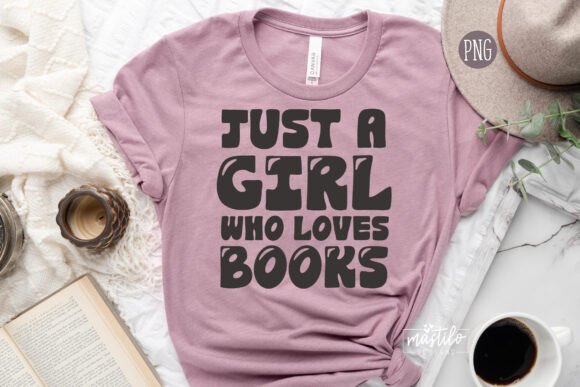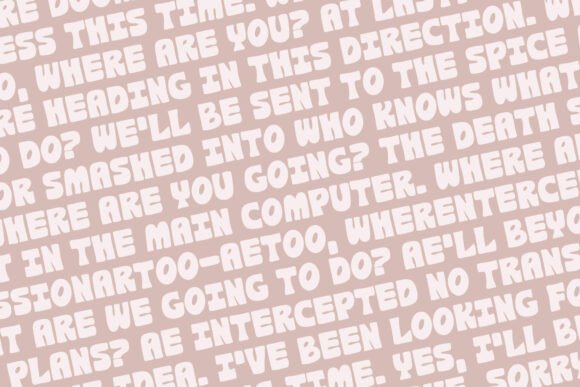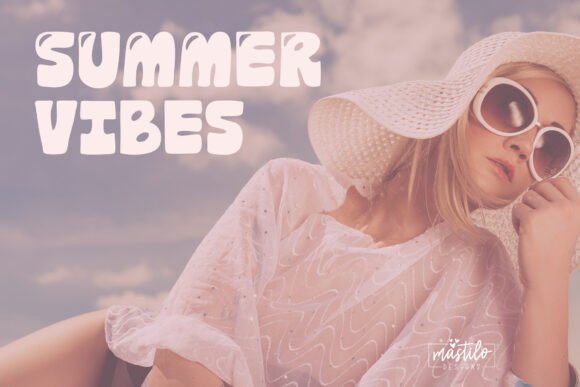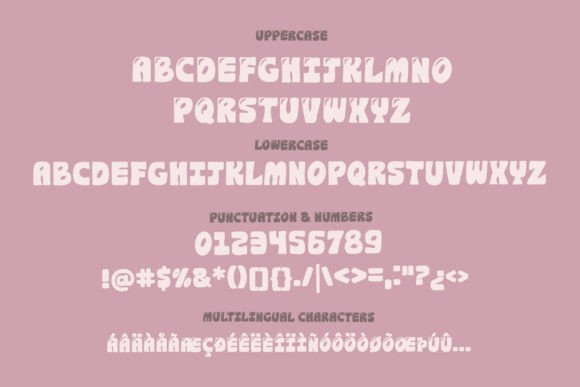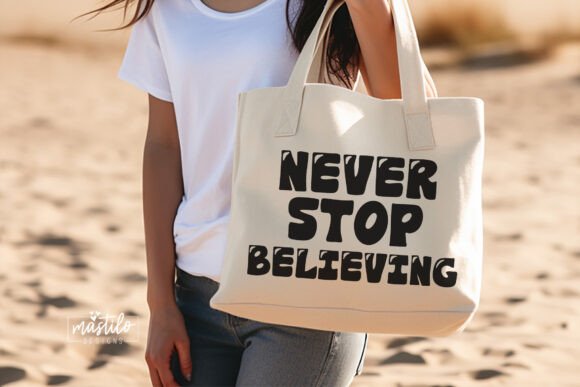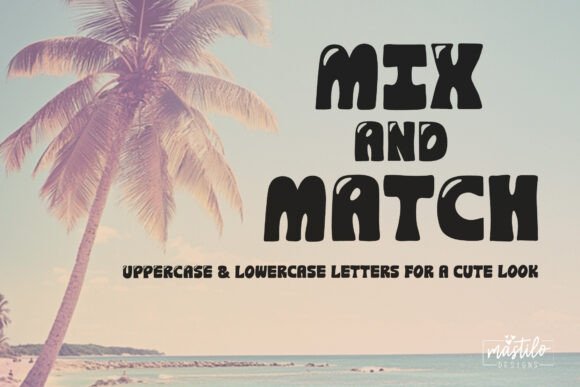
Introducing Ariada: A Dreamy Hand-Drawn Display Retro Groovy Font
Are you tired of using the same old fonts for your design projects? Look no further! We’re excited to introduce Ariada, a stunning hand-drawn display retro groovy font that’s sure to add a touch of whimsy and personality to your work. With its versatile design, plenty of ligatures, and stylistic alternates, Ariada is the perfect font for designers and crafters looking to add some flair to their projects.
What Makes Ariada Special?
Ariada is a one-of-a-kind font that’s been carefully crafted to evoke a sense of nostalgia and playfulness. Its dreamy, hand-drawn design features bold lines, curvaceous shapes, and a dash of retro charm. Whether you’re working on a logo, branding project, or social media graphics, Ariada is sure to make your designs stand out from the crowd.
Key Features of Ariada
- Hand-drawn design: Ariada’s unique, hand-drawn design gives it a personal and organic feel that’s perfect for designs that require a touch of personality.
- Retro groovy vibe: Inspired by the iconic designs of the 1960s and 1970s, Ariada’s retro groovy vibe is sure to add a fun and playful touch to your designs.
- Versatile: With its clean and simple design, Ariada can be used for a wide range of projects, from logos and branding to social media graphics and posters.
- Plenty of ligatures and stylistic alternates: Ariada features a range of ligatures and stylistic alternates, giving you the flexibility to create unique and customized designs.
Use Cases for Ariada
Ariada’s versatility makes it suitable for a wide range of design projects, including:
- Logos and branding: Create a unique and memorable logo for your business or brand with Ariada’s bold and playful design.
- Social media graphics: Add a touch of personality to your social media graphics, including Facebook posts, Instagram stories, and Twitter headers.
- Posters and flyers: Create eye-catching posters and flyers for events, promotions, or advertising campaigns.
- Packaging design: Use Ariada to add a touch of whimsy and personality to your product packaging.
Tips for Using Ariada
To get the most out of Ariada, here are a few tips to keep in mind:
- Experiment with different sizes and colors: Ariada looks great in a variety of sizes and colors, so don’t be afraid to experiment and find the perfect combination for your design.
- Mix and match ligatures and stylistic alternates: Take advantage of Ariada’s ligatures and stylistic alternates to create unique and customized designs.
- Pair with other fonts: Ariada pairs well with a range of other fonts, so feel free to experiment with different combinations to find the perfect match.
Ariada is a truly unique and versatile font that’s perfect for designers and crafters looking to add a touch of personality to their projects. With its dreamy, hand-drawn design, retro groovy vibe, and plenty of ligatures and stylistic alternates, Ariada is sure to become a go-to font in your design arsenal. So why wait? Download Ariada today and start creating stunning designs that are sure to turn heads!